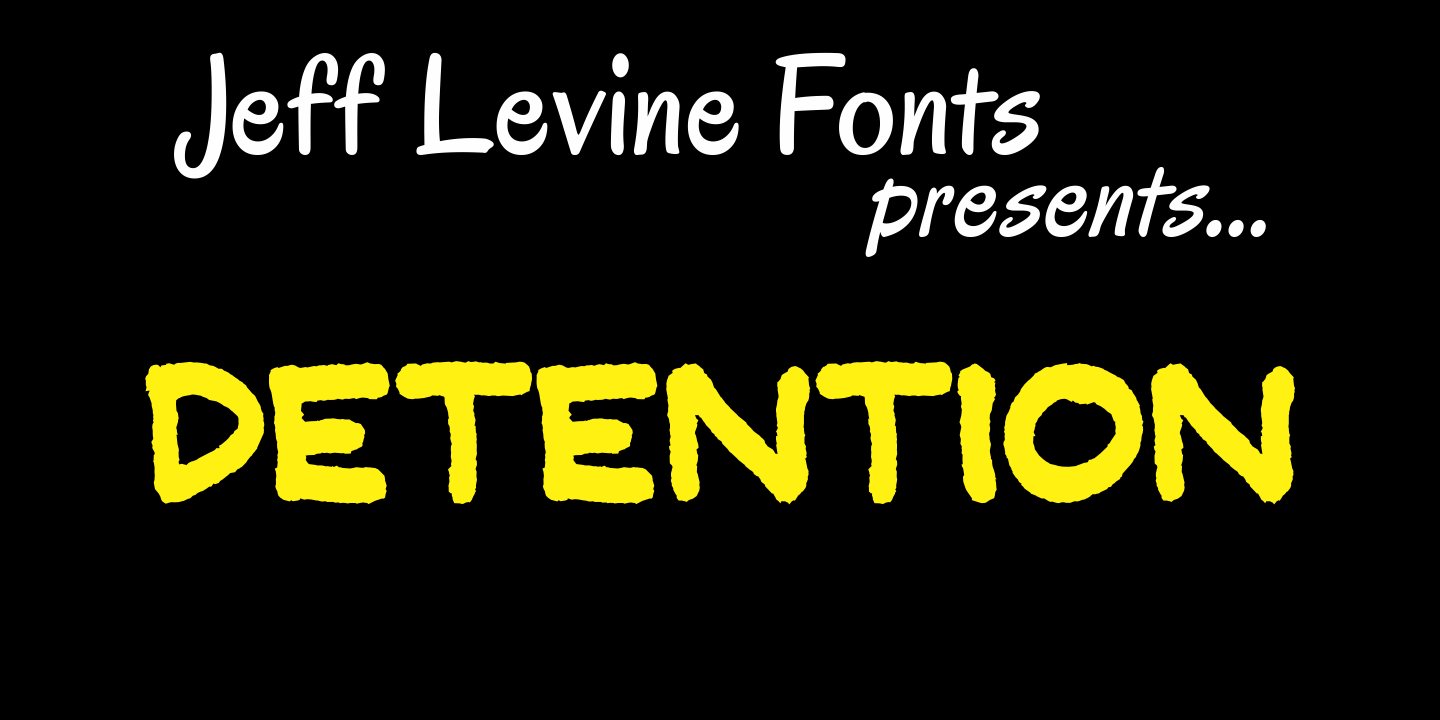
Detention
Detention JNL is simply the hand printing of its designer, Jeff Levine.
Its uses range from personalizing notes and messages to a graffiti look or as "legible grunge lettering".